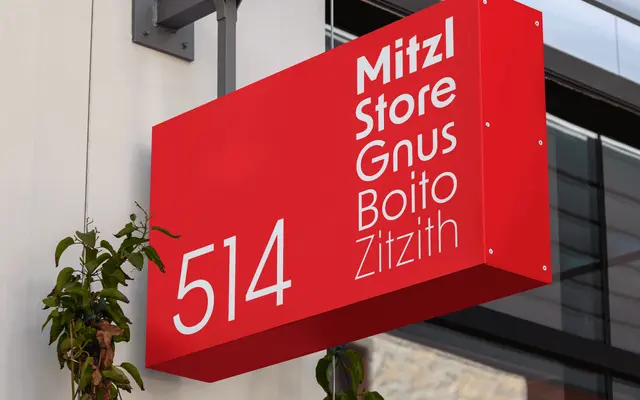
New Order
A five-weight geometric sans by Rutherford Craze and Miles Newlyn, drawing quietly on early twentieth century avant garde letterforms.
Designed by Rutherford Craze and Miles Newlyn, New Order takes geometric sans conventions and inflects them with subtle references to constructivist and Bauhaus-era typography without becoming a period revival. Five weights from Light to Bold cover the range needed for continuous text and titling alike. The even spacing and restrained forms make it a serviceable choice for editorial, institutional and branding work.
New Order draws on early twentieth century avant garde typography, suggesting geometric and constructivist influences typical of the Bauhaus and De Stijl movements, placing it firmly in the geometric sans-serif tradition.